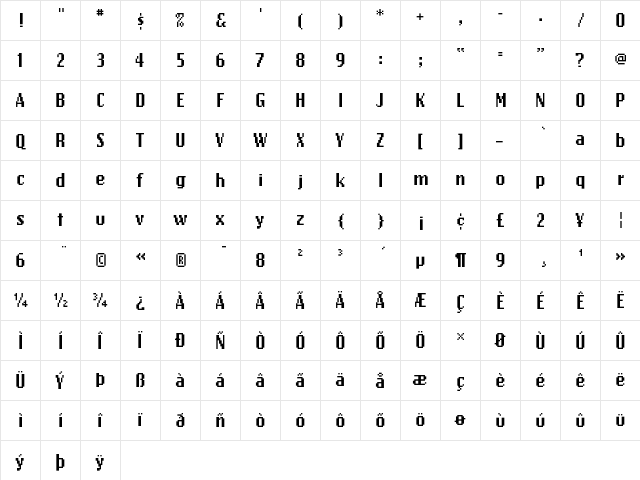
EmigreTen Regular
Design Context for EmigreTen Typeface
EmigreTen is a composed and adaptable typeface that performs quietly and consistently across a wide range of design contexts.